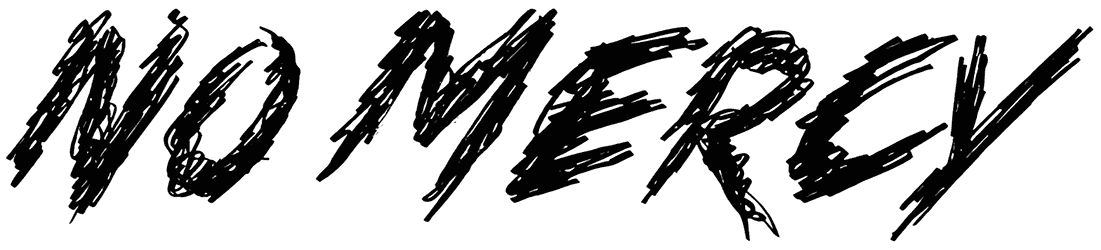
No Mercy Font
Sometimes you need to combine two font styles to create great fonts like No Mercy. This font is a mix of both scribble fonts and horror fonts with fast and careless design to make such creepy and frightening effects.
Lowercase letters, numbers, and punctuation are not part of this set, but instead, you get two uppercase characters. This is just for RB fans; we have a whole category that you can browse through to find what you are looking for.